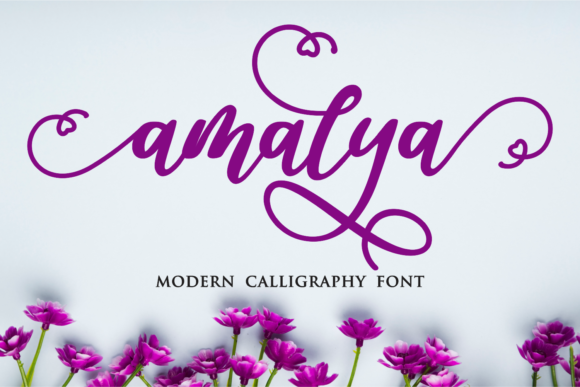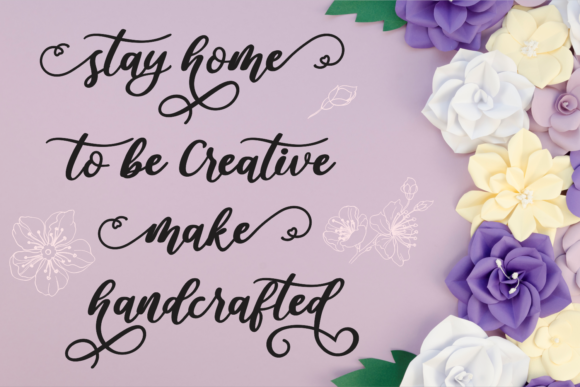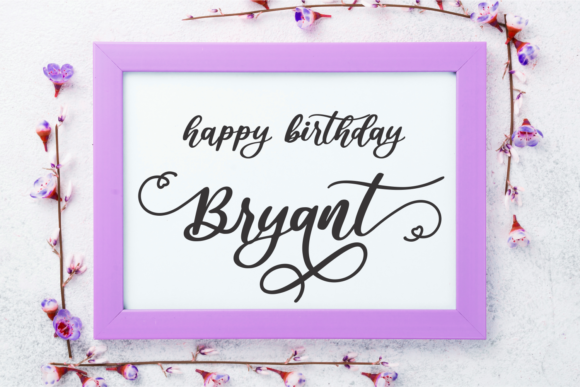
Amalya Font
Amalya is a magical handwritten font carefully created with a touch of elegance. Amalya is the perfect font for making original and outstanding designs.